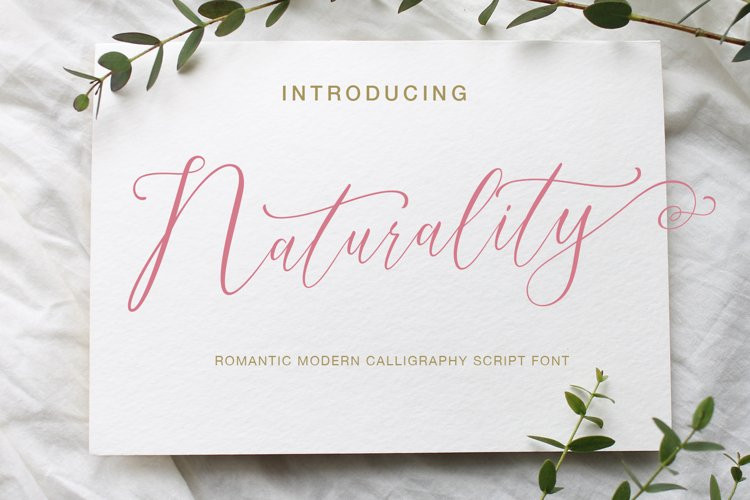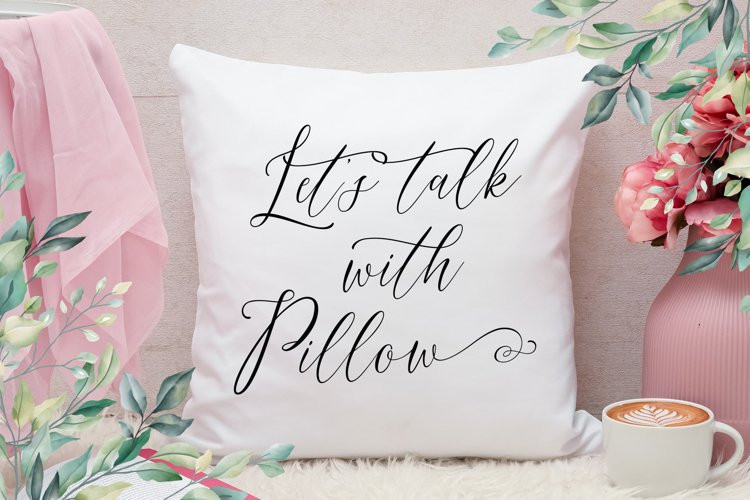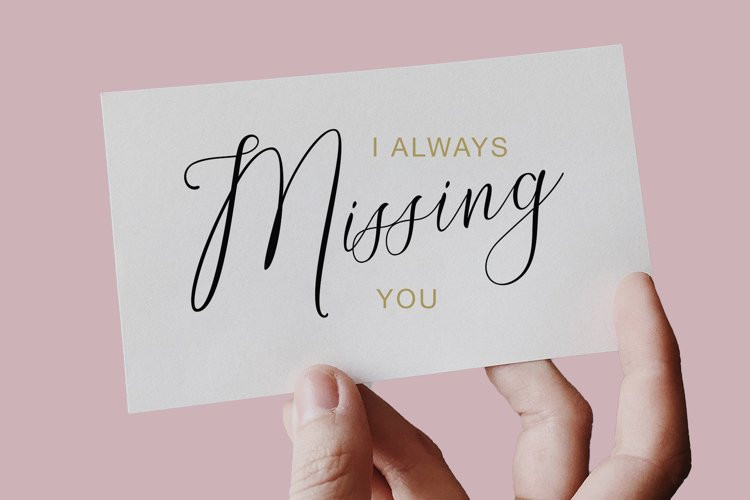
Naturality Font
Naturality FontNaturality is a connecting script, designed to convey elegance and style. It is slender, feminine and friendly, let alone sexy. Naturality Script will work perfectly for fashion, e-commerce brands, trend blogs, or any business that wants to appear classy and chic.
The font is ideal for high-end logotypes and magazine headlines, greeting cards, invitations, posters, ads, and the various web usages. Multilingual, swashes, and stylistic alternates to unleash your creativity.